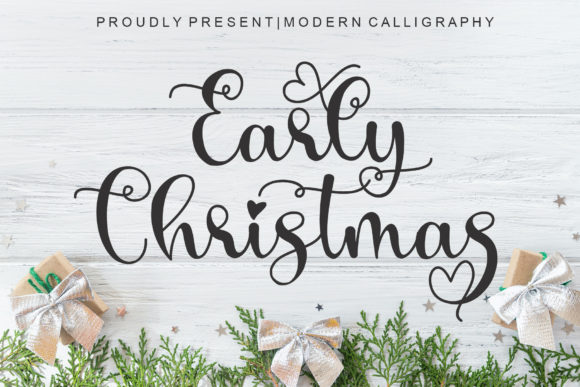
Early Christmas Font: A Festive and Playful Script Font for Your Holiday Projects
The holiday season is upon us, and what better way to get into the spirit than with a beautiful and festive font? Look no further than the Early Christmas font, a lovely script font that features charming, playful characters that seem to dance along the baseline. In this article, we’ll take a closer look at the Early Christmas font, its features, and how you can use it to add a touch of holiday cheer to your projects.
What is Early Christmas Font?
Early Christmas is a script font that is designed to evoke the feeling of a bygone era. Its playful, cursive characters are reminiscent of traditional holiday cards and decorations, and are sure to add a touch of nostalgia and whimsy to any project. The font features a range of charming characters, including uppercase and lowercase letters, numbers, and punctuation marks, all of which are designed to work together to create a cohesive and festive look.
Features of Early Christmas Font
So what makes the Early Christmas font so special? Here are just a few of its key features:
- PUA Encoding: The Early Christmas font is PUA (Private Use Area) encoded, which means that you can access all of the glyphs and swashes with ease. This makes it easy to customize your text and add your own personal touches.
- Playful Characters: The font features a range of playful characters, including dancing letters and swashes, that are sure to add a touch of whimsy to your project.
- Charming and Festive: The Early Christmas font is designed to evoke the feeling of the holiday season, with charming and festive characters that are sure to put you in the mood for Christmas.
The Early Christmas font is a beautiful and festive script font that is perfect for adding a touch of holiday cheer to your projects. With its playful characters, charming design, and PUA encoding, it’s easy to see why this font is a popular choice for designers and crafters alike. Whether you’re creating holiday cards and invitations, social media graphics, or print design projects, the Early Christmas font is sure to add a touch of whimsy and fun to your work.
- Font Name: Early Christmas
- Font Style: Script
- Font Encoding: PUA
- Characters: Uppercase and lowercase letters, numbers, and punctuation marks